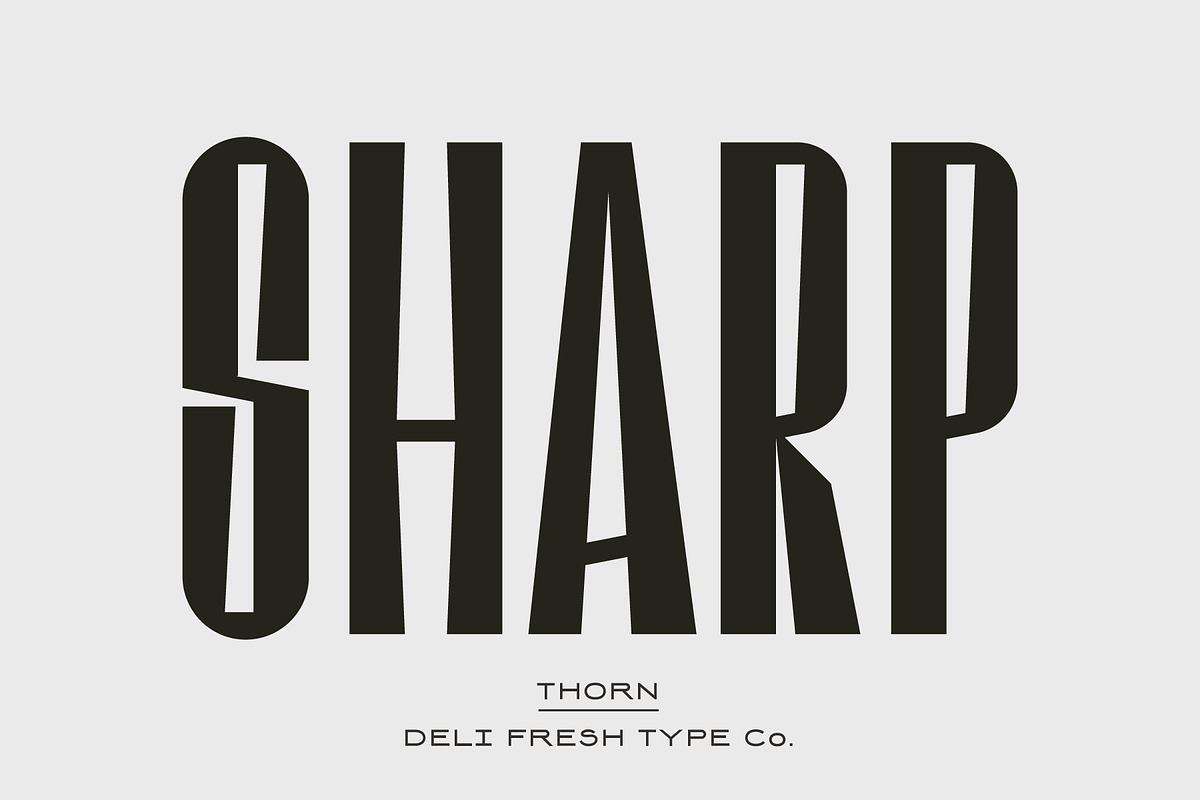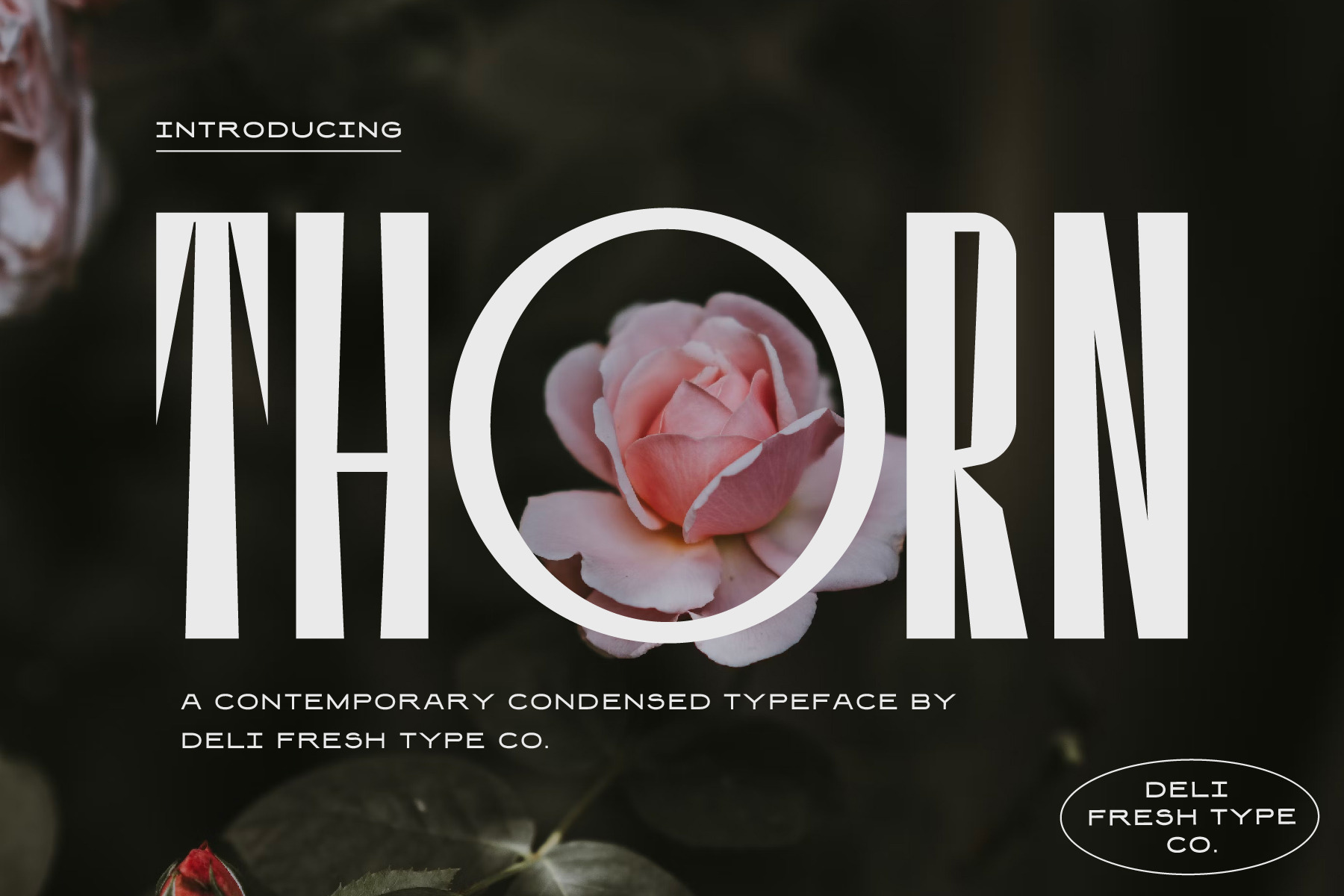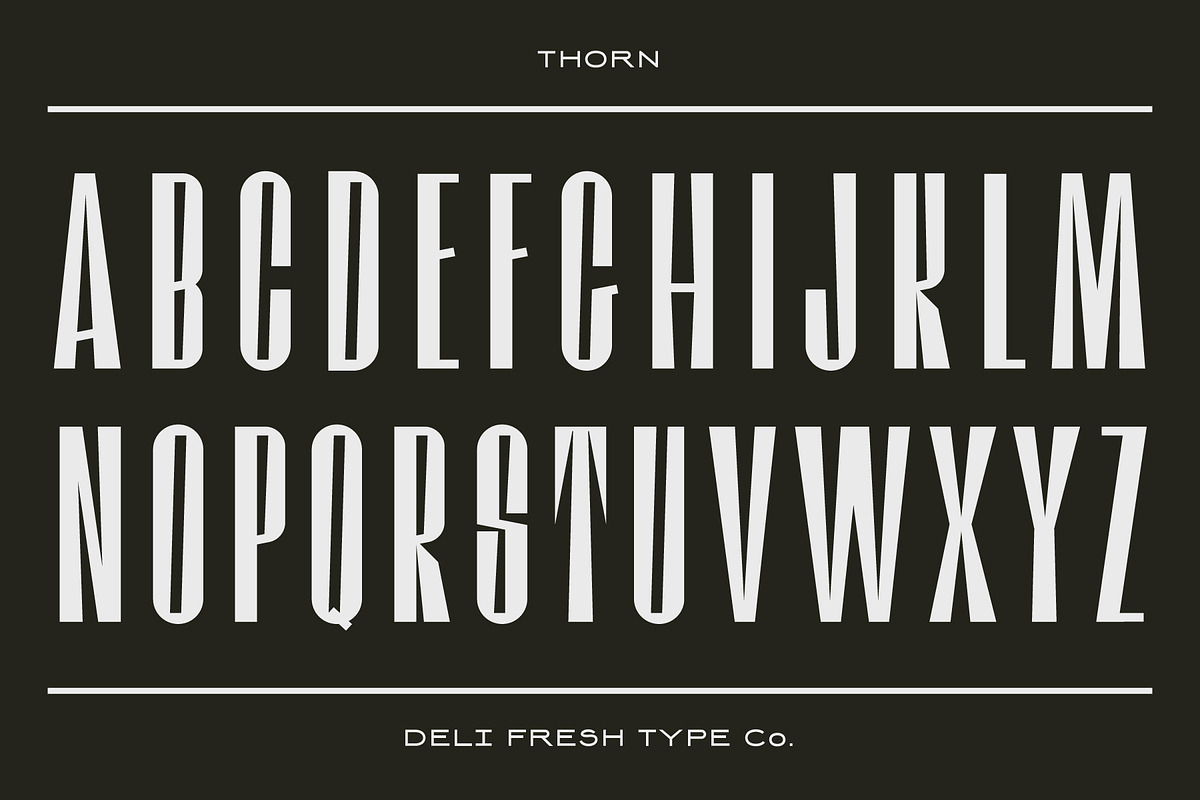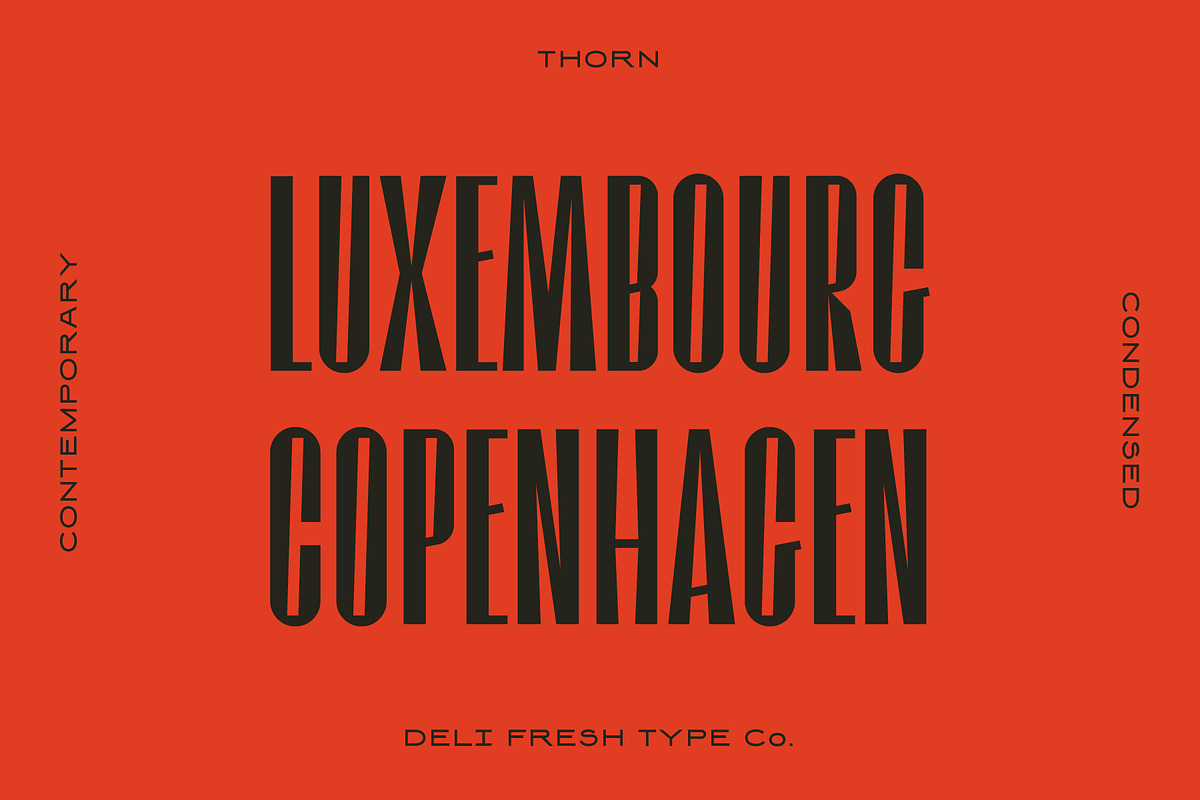
Thorn: A Contemporary Condensed Font
A contemporary, condensed typeface designed by Deli Fresh Type Co.
This tall, sharp font comes with capitals, numerals, and a smattering of special characters.